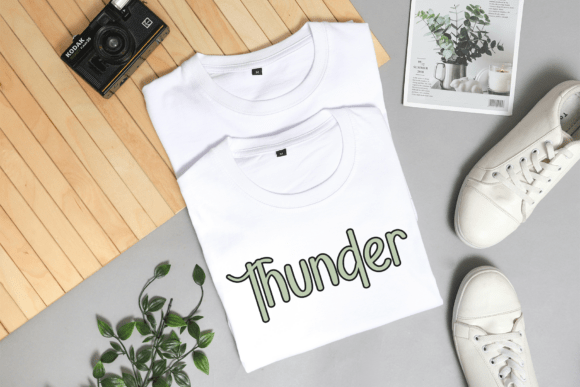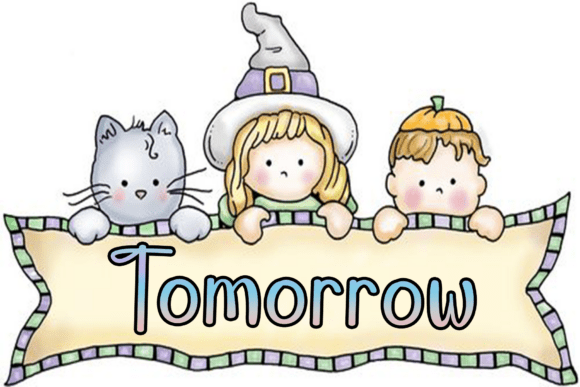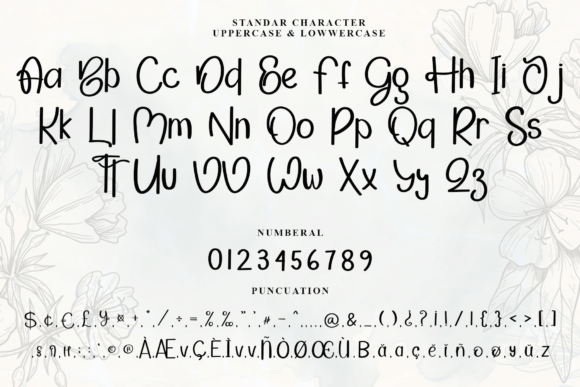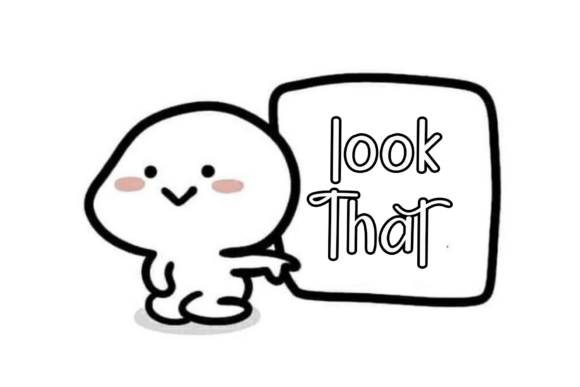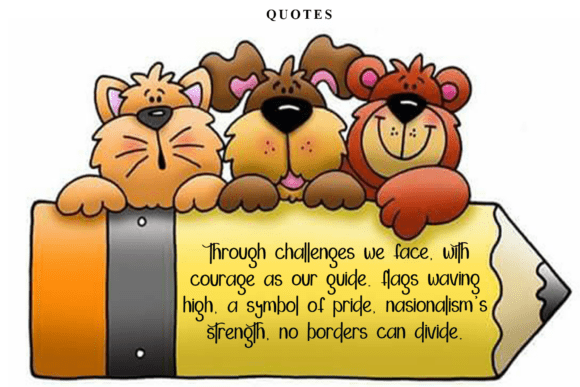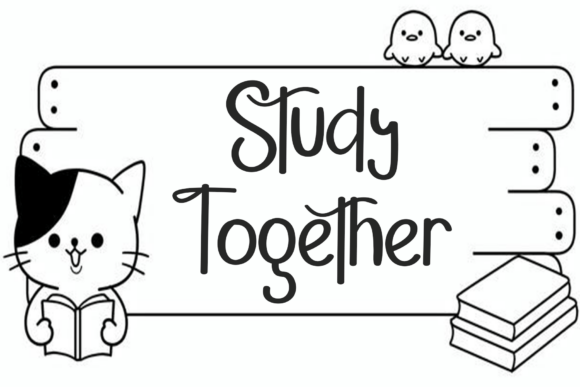
The Elegant Charm of Border Font: A Designer’s Delight
I’ll never forget the time I was working on a wedding invitation project, and my client asked for a font that exuded elegance and sophistication. I scoured the internet, tried out countless fonts, but nothing seemed to fit the bill. That was until I stumbled upon Border Font. With its graceful strokes and feminine touch, it captured the essence of a handwritten signature and added a delicate touch to the project. In this article, I’ll share my experience with Border Font, its features, and how to make the most of it in your designs.
A Personal Review of Border Font
Border Font is an elegant handwritten font that exudes softness and grace. Here’s what I love about it:
• ✨ Elegant and sophisticated feel, perfect for invitations, greeting cards, and personal branding
• ✅ Beautifully crafted letters with a feminine touch
• 💫 Supports OpenType features, glyphs, and stylistic alternates, making it versatile for various design projects
While Border Font is a stunning font, it’s not without its quirks. Here are a few things to keep in mind:
• ⚠️ Some letters may require manual kerning for optimal spacing
• 🤔 Limited availability of Cyrillic and non-English characters
The Story Behind Border Font
Border Font was designed with the intention of creating a elegant and sophisticated handwritten font that captures the essence of a handwritten signature. The designer aimed to create a font that’s both feminine and refined, making it perfect for invitations, greeting cards, and personal branding.
What is Border Font? Border Font is an elegant handwritten font that exudes softness and grace, perfect for invitations, greeting cards, and personal branding.
Can I use Border Font for my wedding invitation? Absolutely! Border Font is perfect for wedding invitations, and its elegant feel will add a touch of sophistication to your design.
Does Border Font support OpenType features? Yes, Border Font supports OpenType features, glyphs, and stylistic alternates, making it versatile for various design projects.